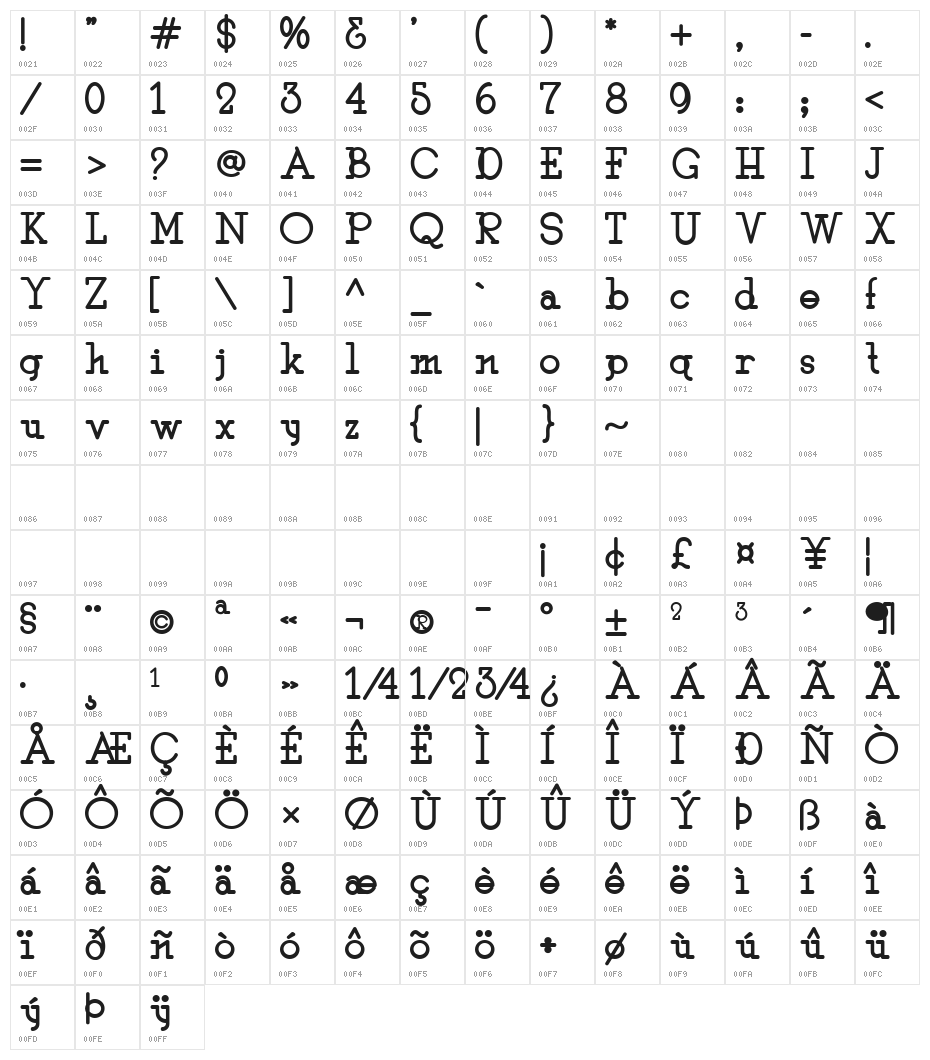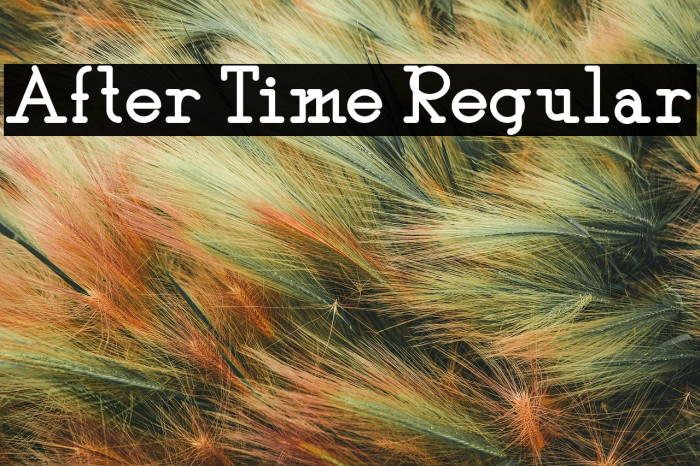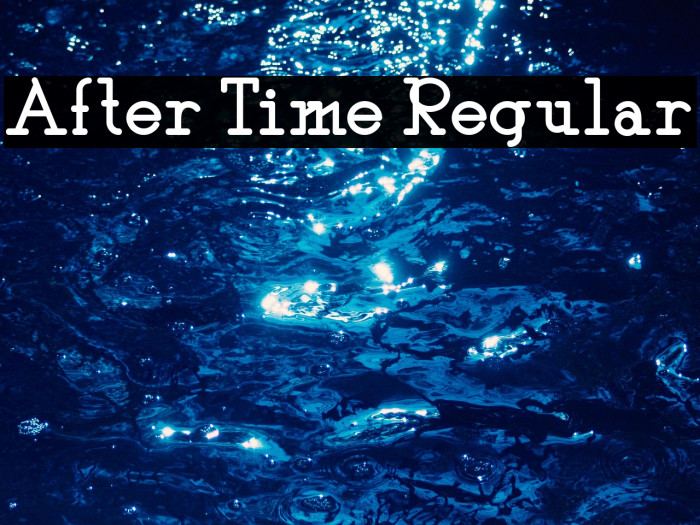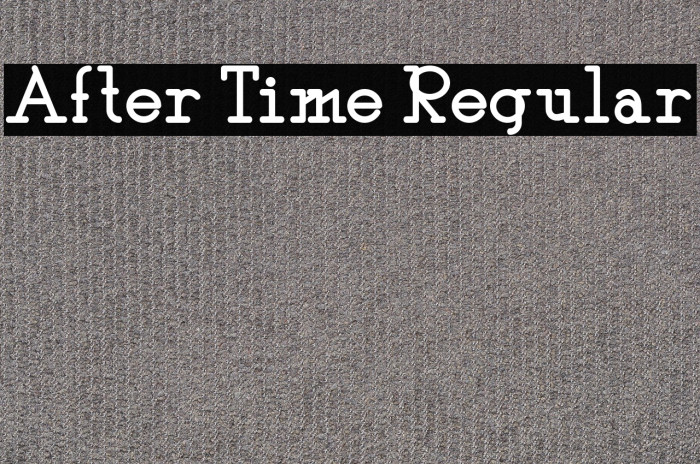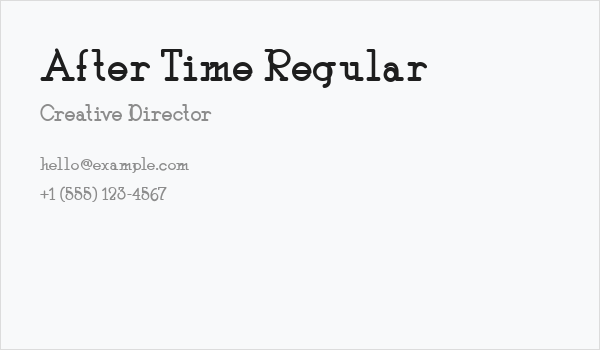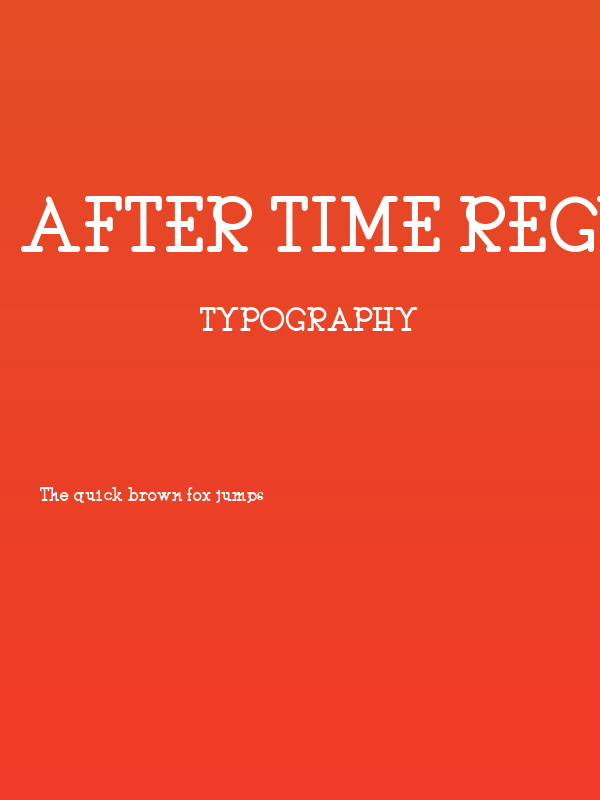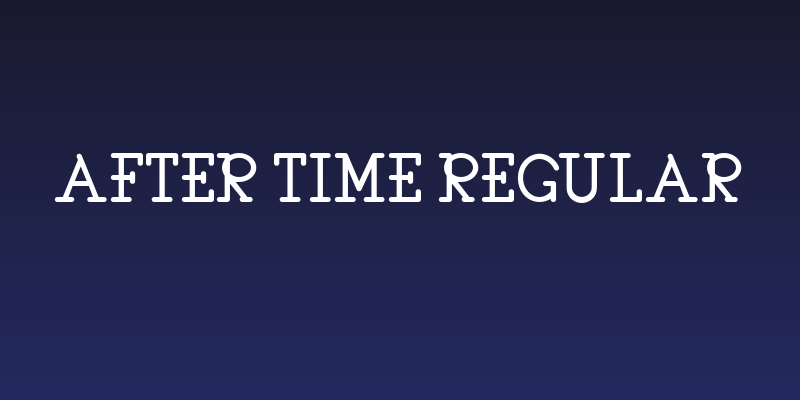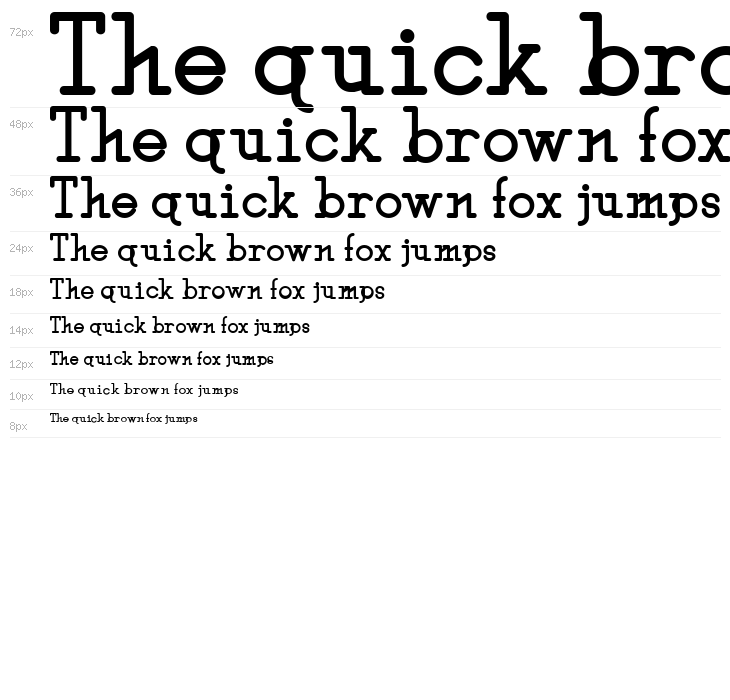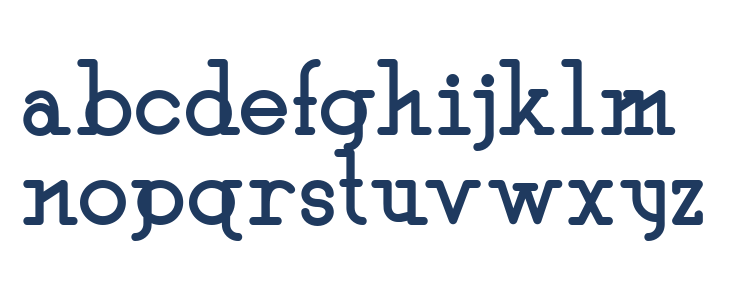
After Time Regular Font
After Time Regular Description
This font features a playful and rounded style with a distinct retro vibe. The characters are bold and have a uniform stroke width, giving them a solid and consistent appearance. The rounded edges and slightly condensed form add a touch of whimsy, making it suitable for creative and informal designs. The numerals and special characters maintain the same playful aesthetic, ensuring a cohesive look across all text elements. The font's unique style makes it stand out, while still being legible and versatile for various design needs.
| Width | Condensed |
| Overall Style | Retro, Playful |
| Proposed Projects | Ideal for posters, children's books, playful branding, and retro-themed designs. |